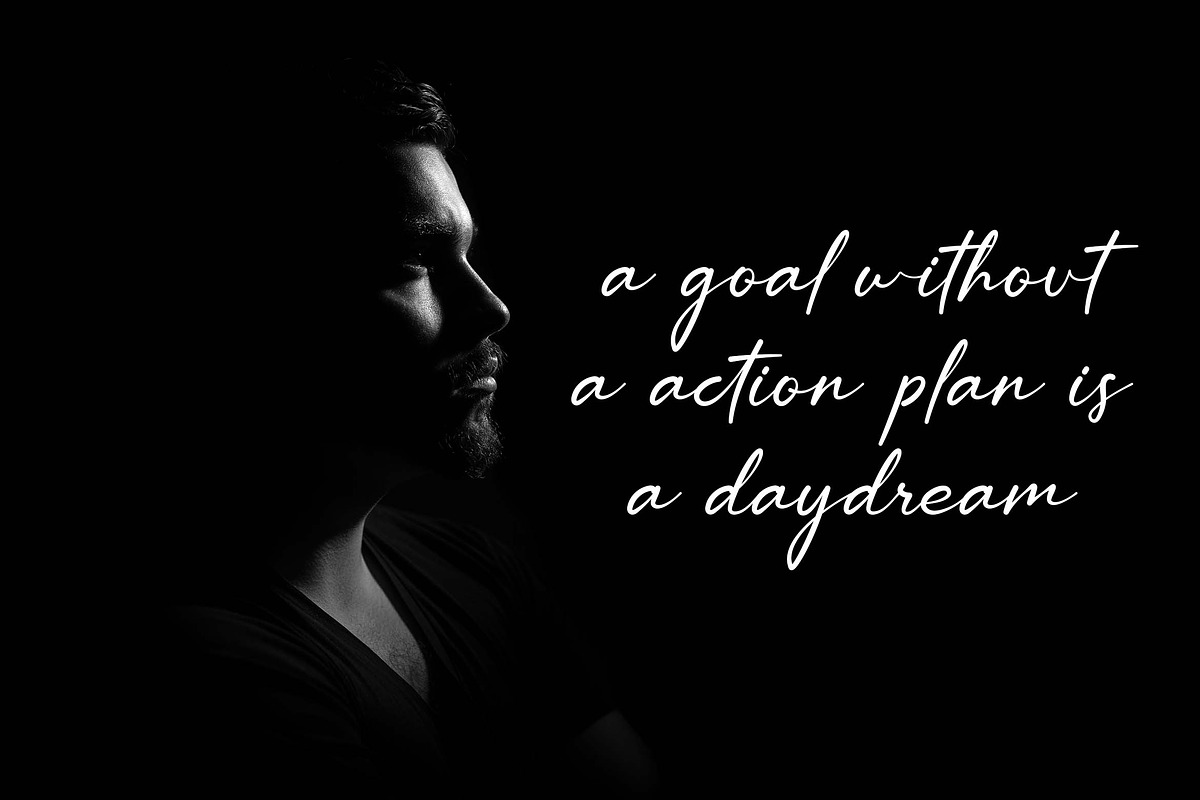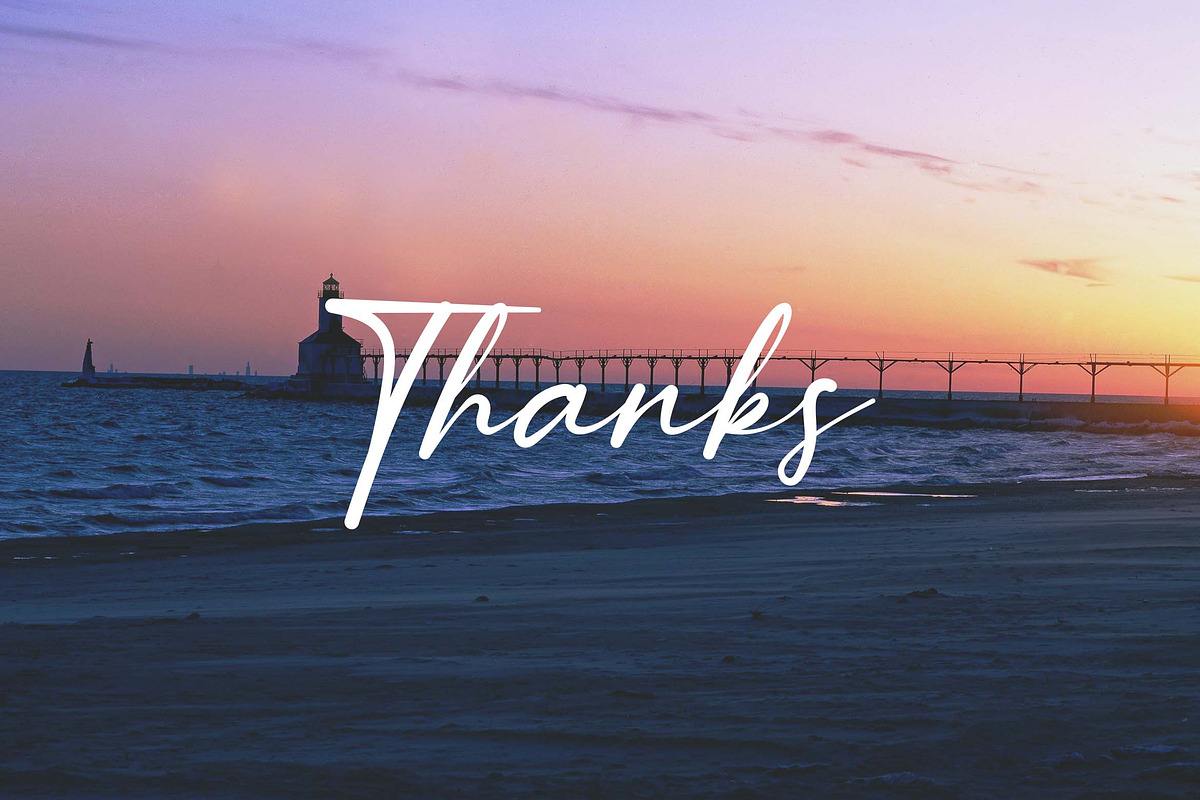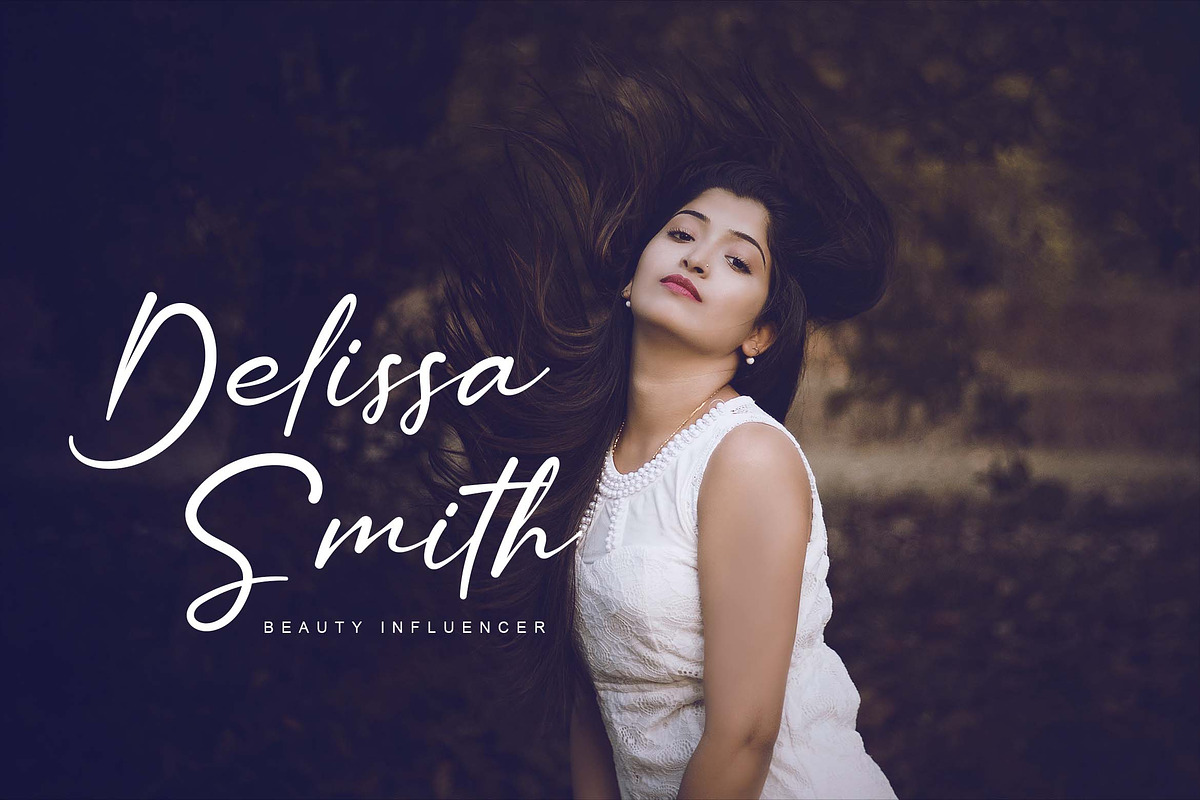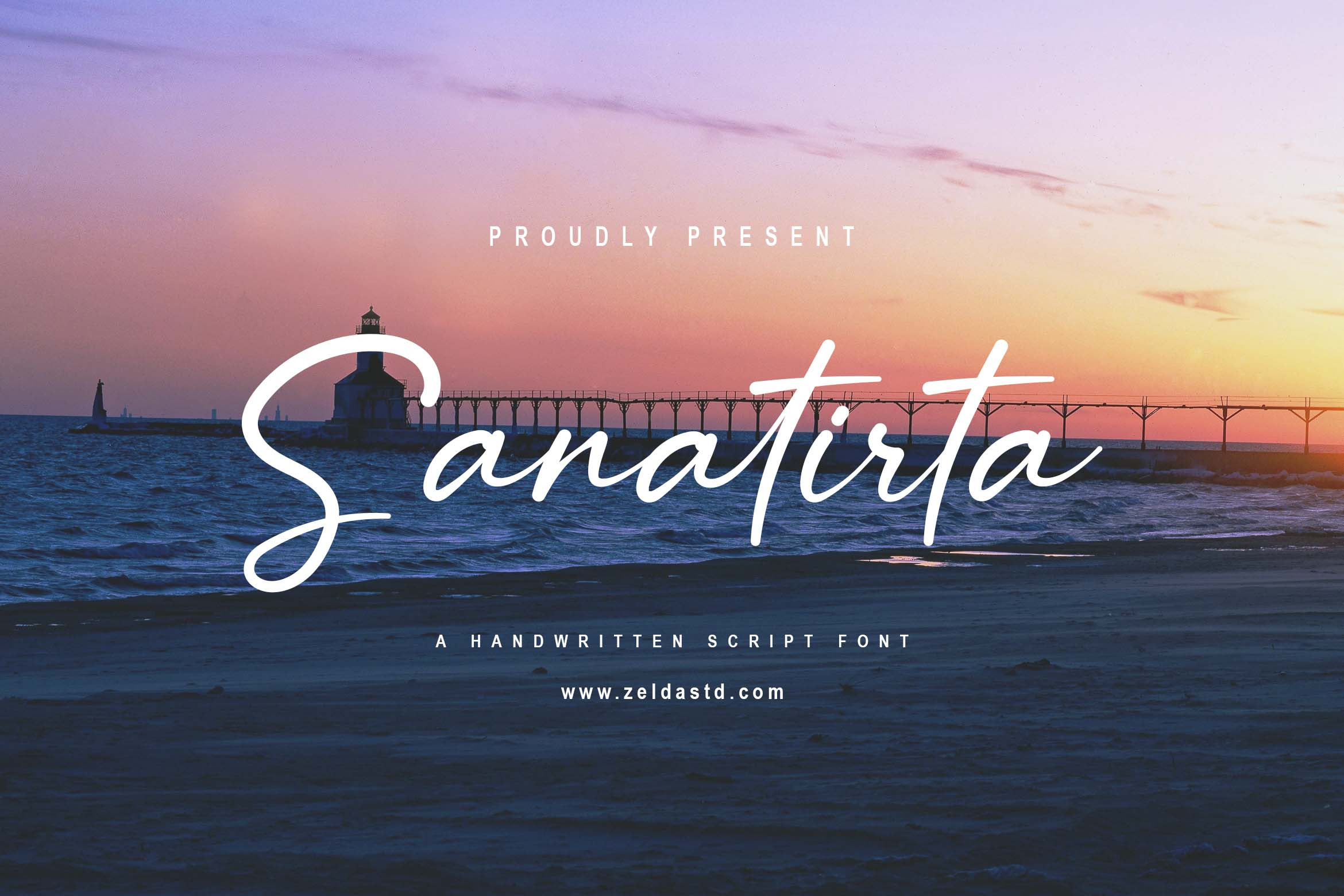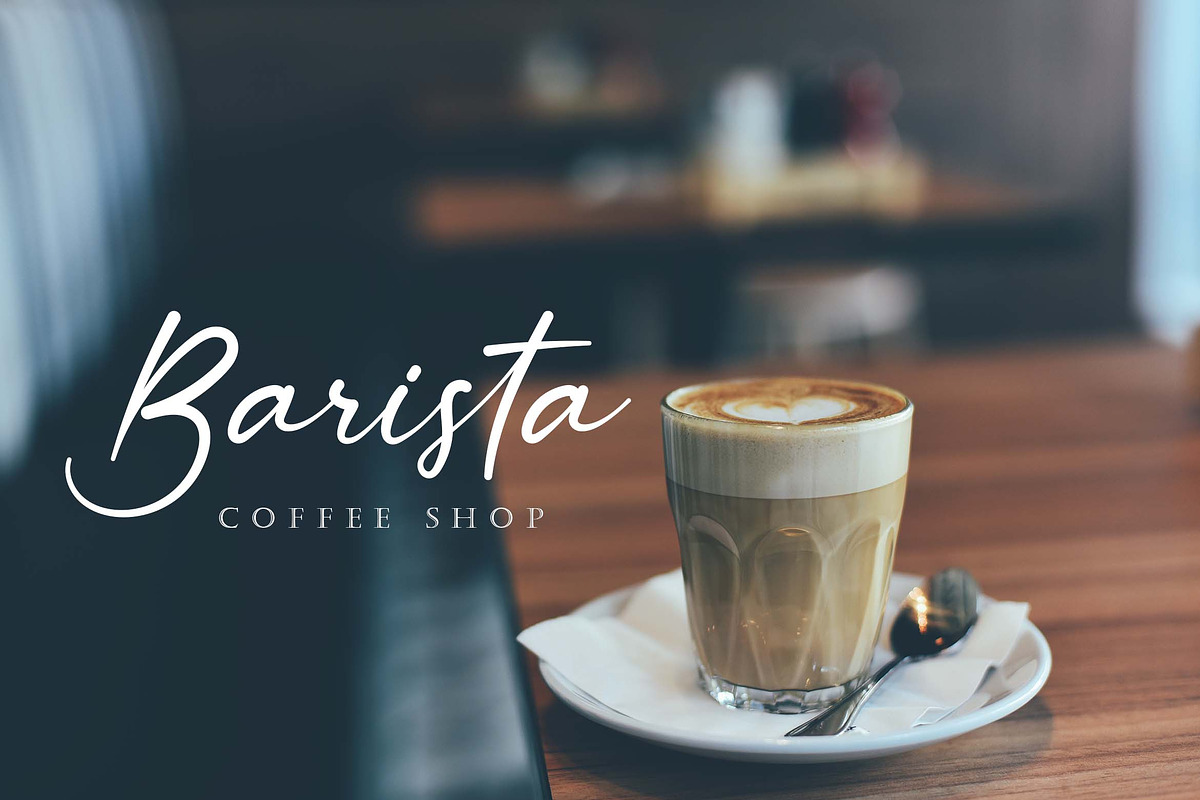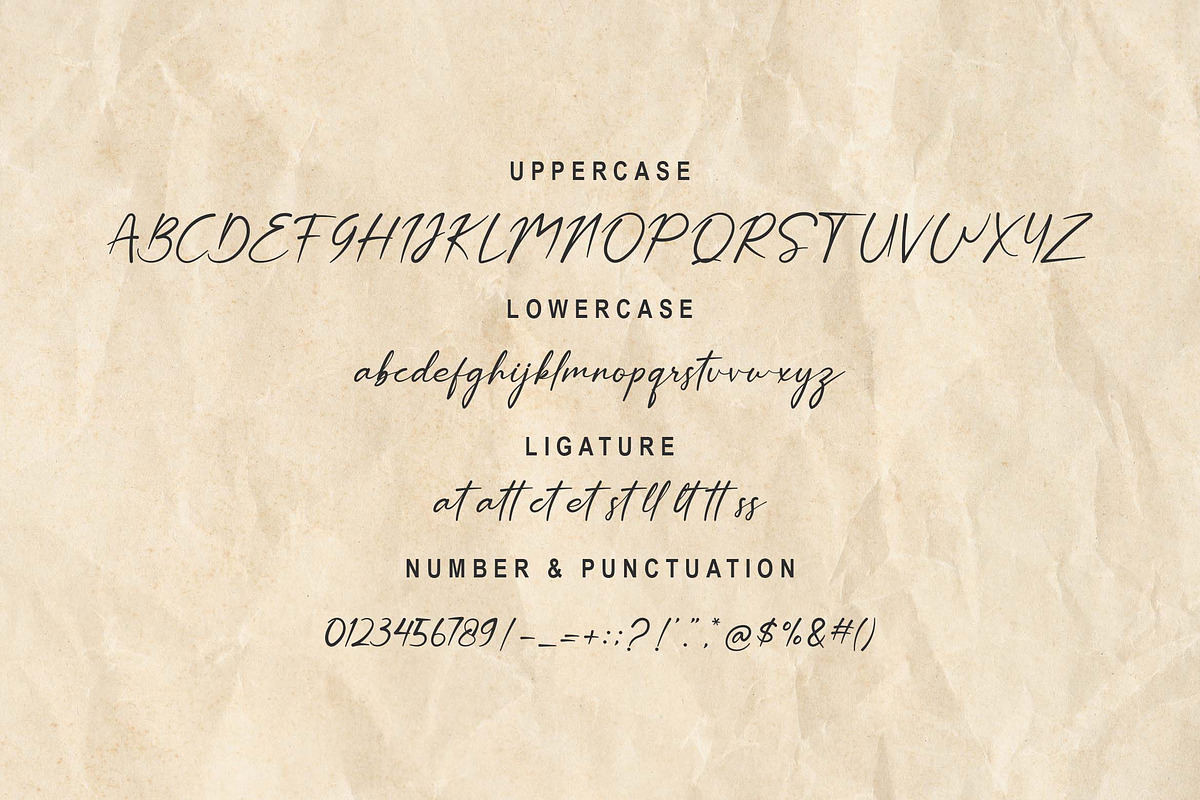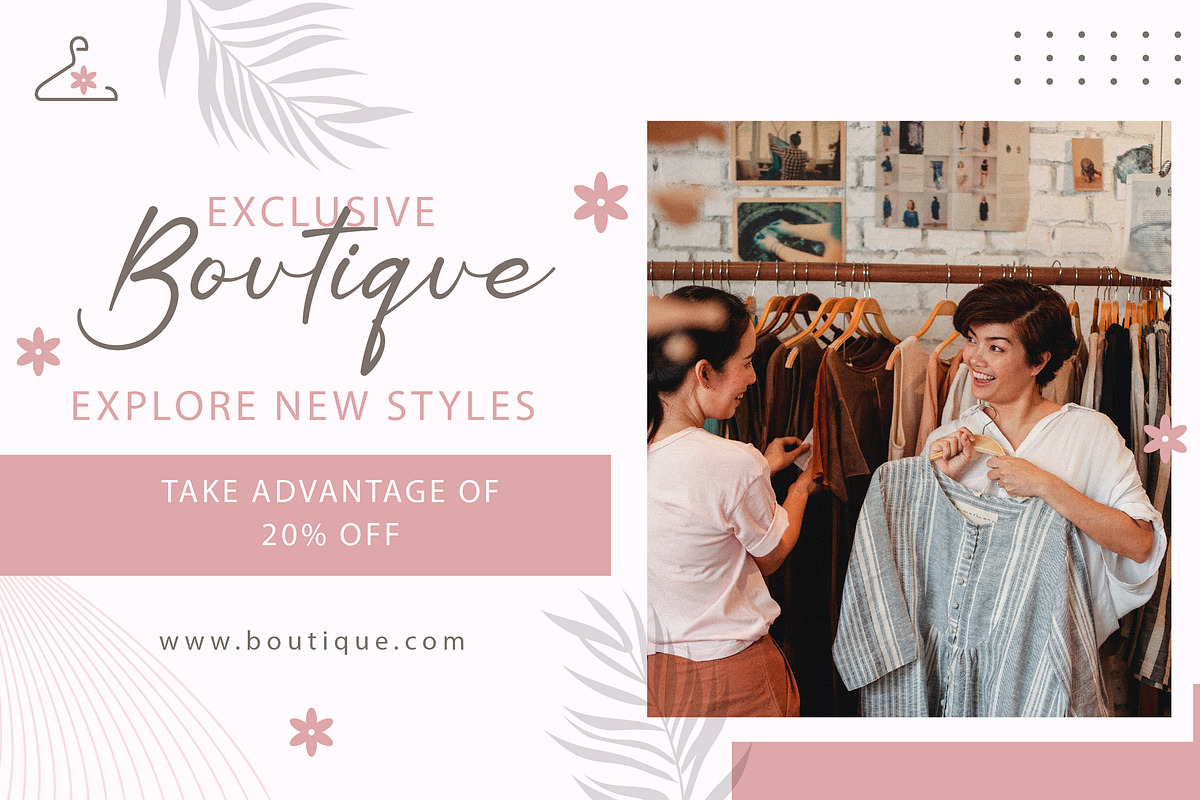
Sanatirta Font
Sanatirta font is a handwritten display font with a strikingly authentic feel font is our new item that is suitable for your Posters. Great for Logo, Poster, Sticker, Jerseys, Invitation Cards, Brochure, etc.
- Numbers and Punctuation